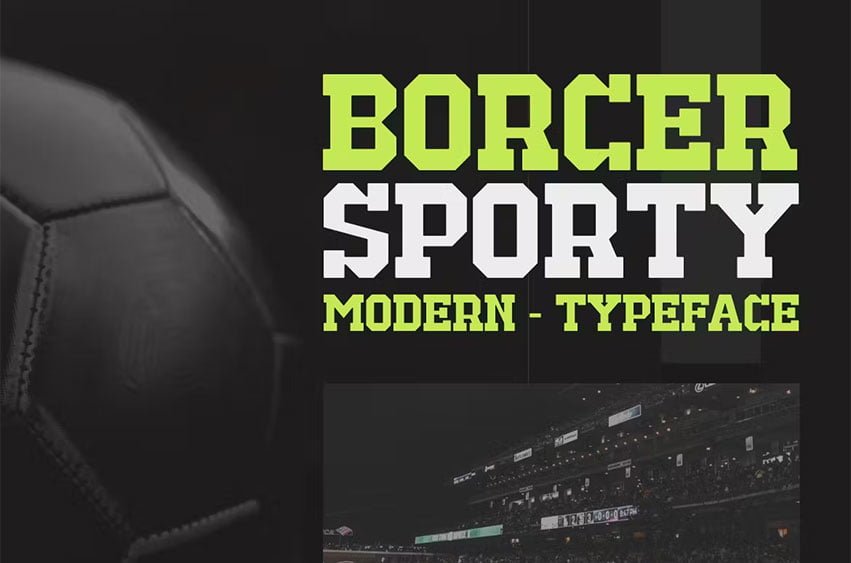
Borcer Sporty Font Modern Font is a bold and authentic display font. The font is suitable for any branding project like logo, template design, esport, and many more. outstanding in a wide range of contexts.